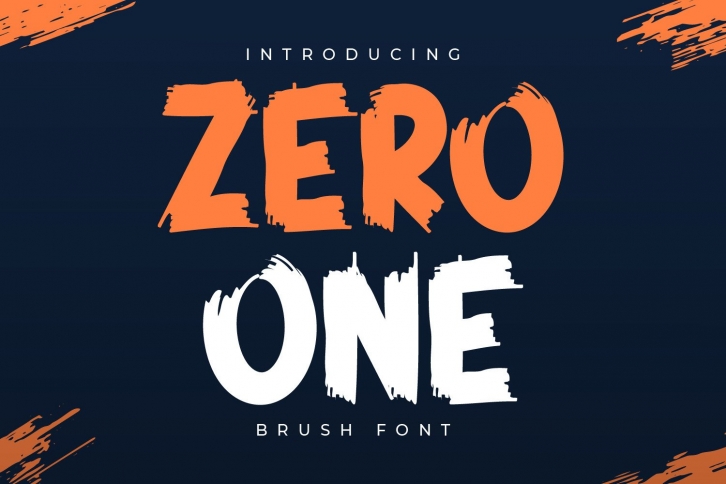
Zero One is a cool, bold and brushed display font. This font is suitable for designs such as t-shirts, sportswear, logos, advertisements, clothing, and more.